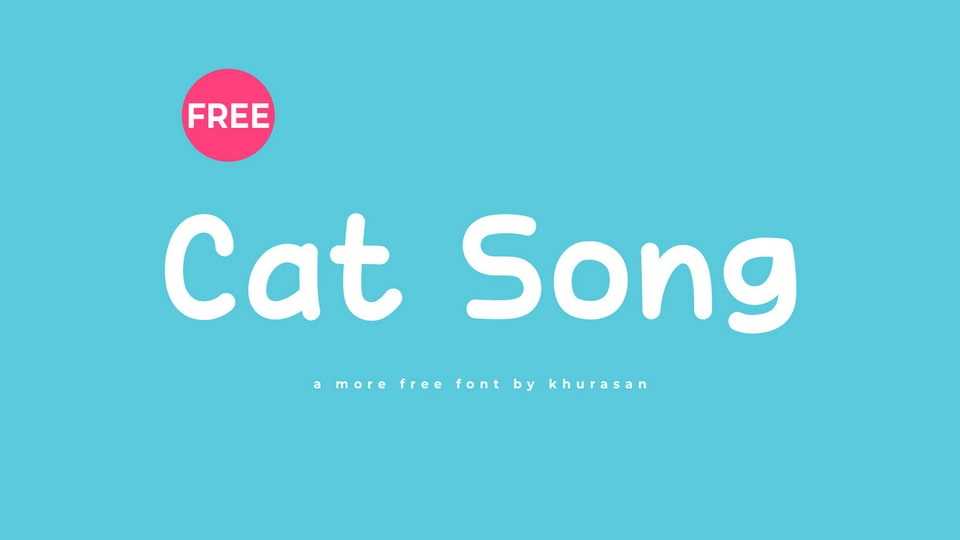
Download Cat Song font, a casual, playful, and irresistibly cute hand-drawn comic typeface that adds a touch of whimsy to your designs. Cat Song font is crafted with care and charm, featuring playful strokes and adorable details reminiscent of a doodle brought to life.